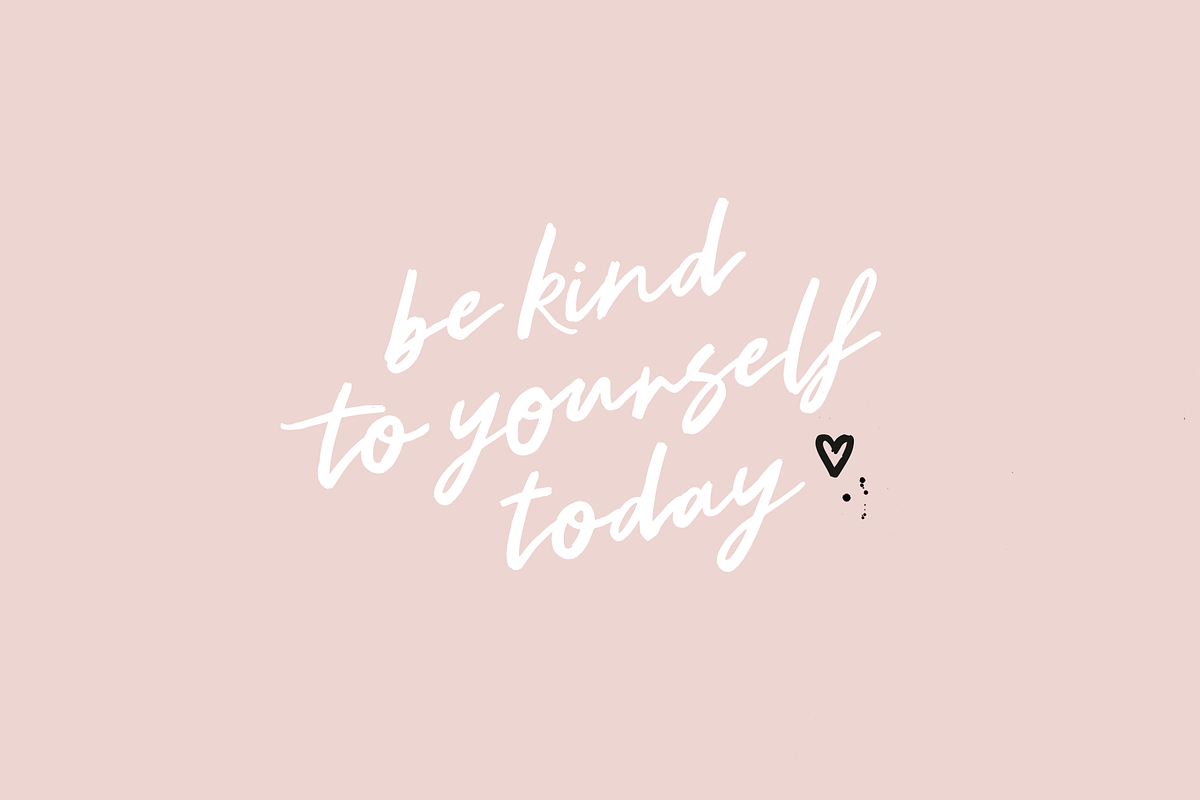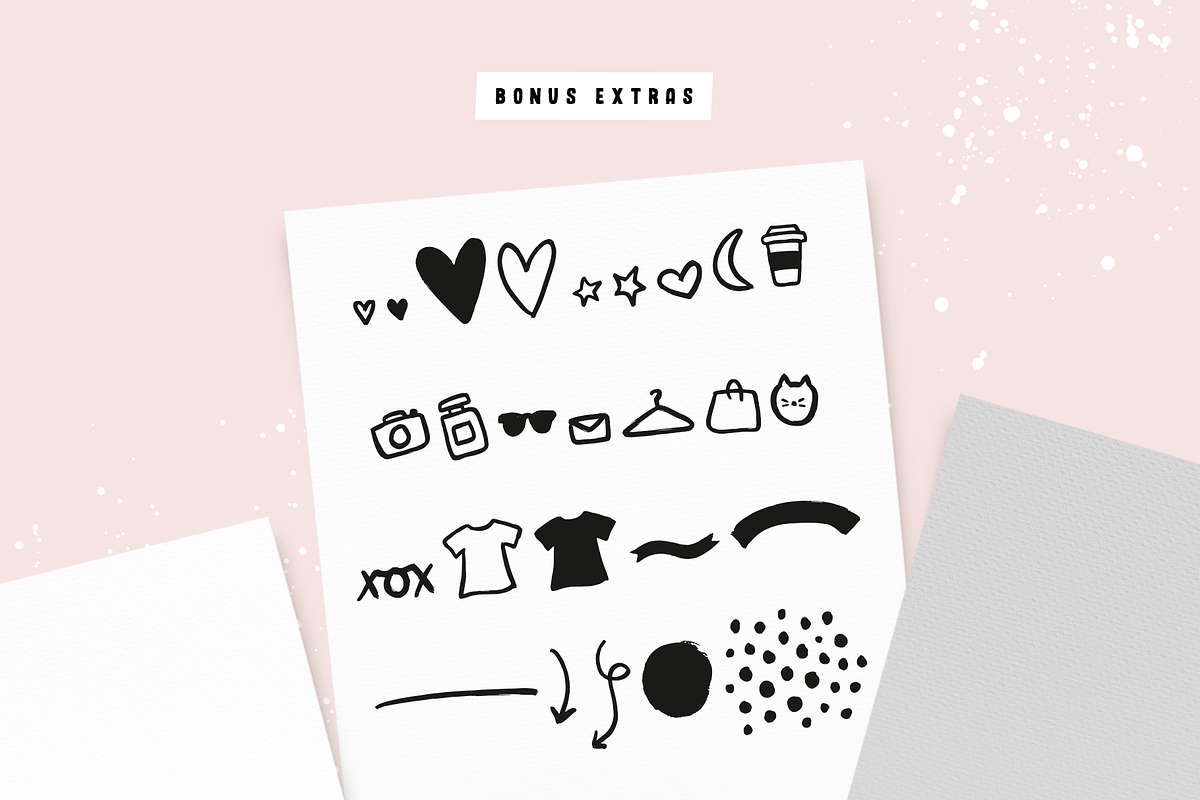
Beautiful Disaster is an artsy, creative brush script with bonus extras! Achieve a hand-lettered style of writing in a paintbrush effect easily, with a font that does all the work for you.